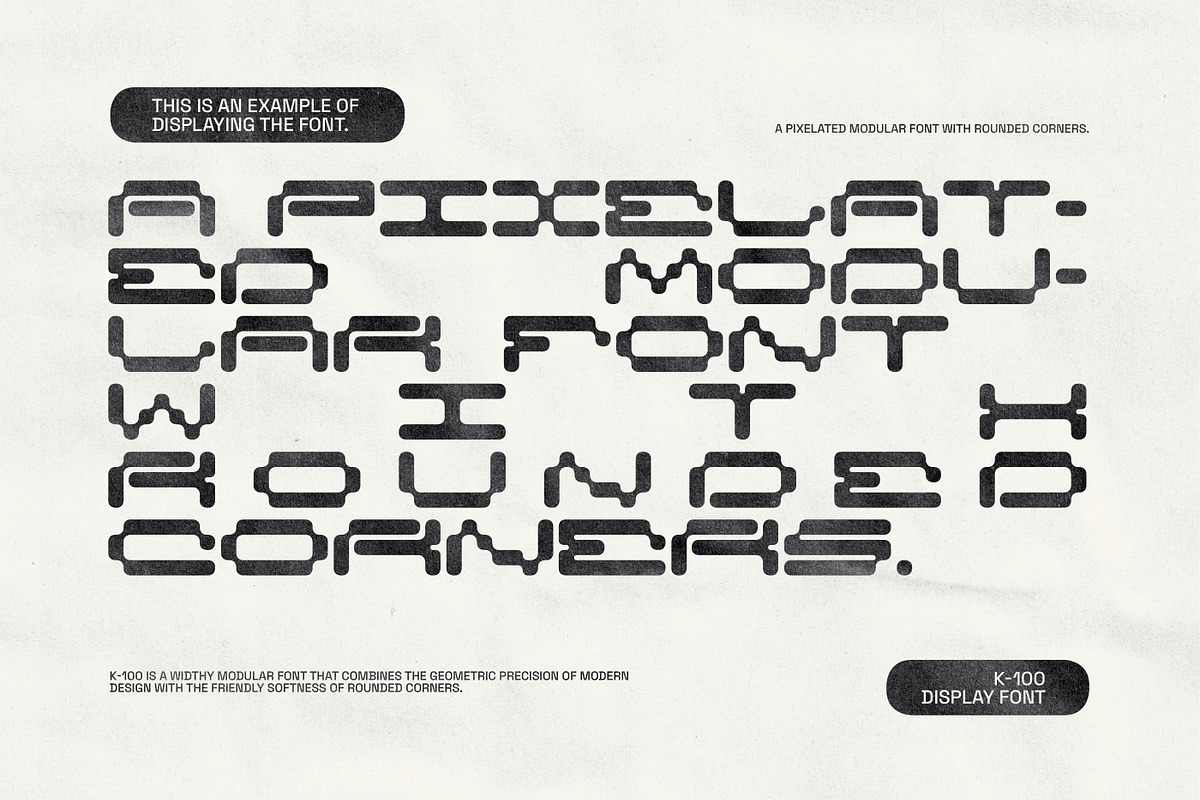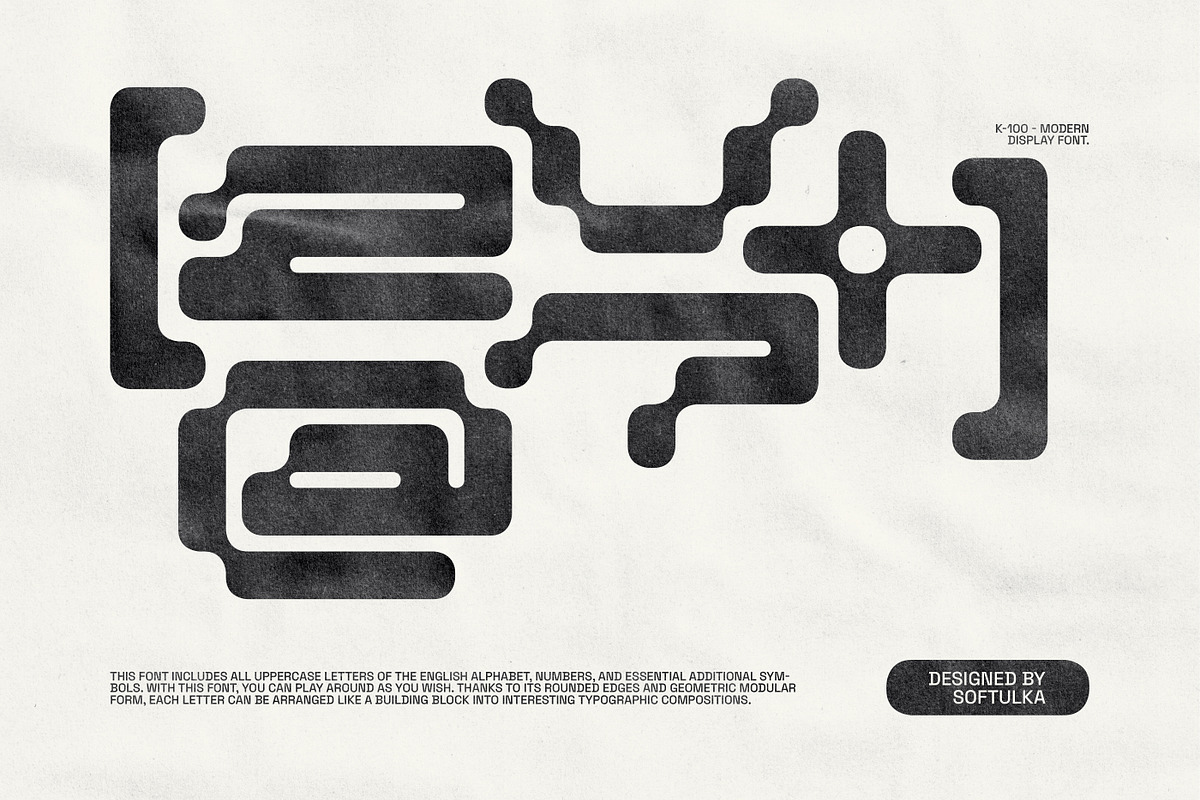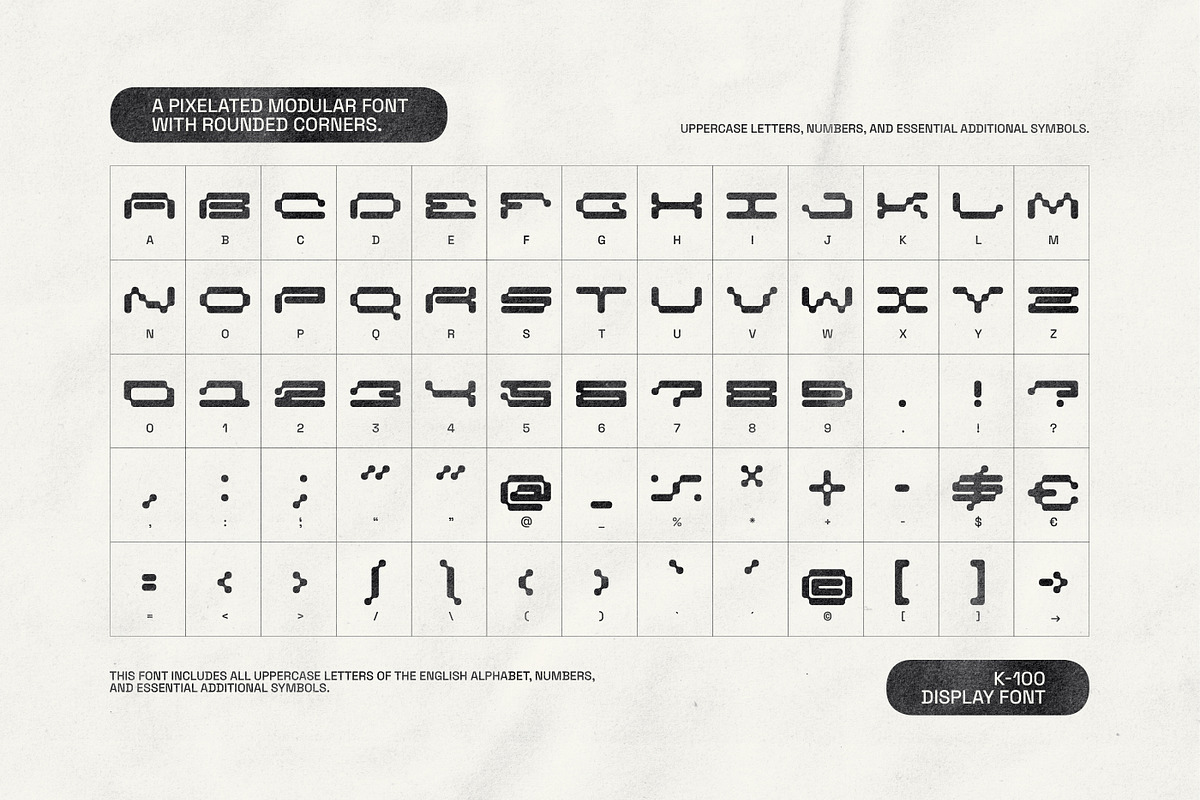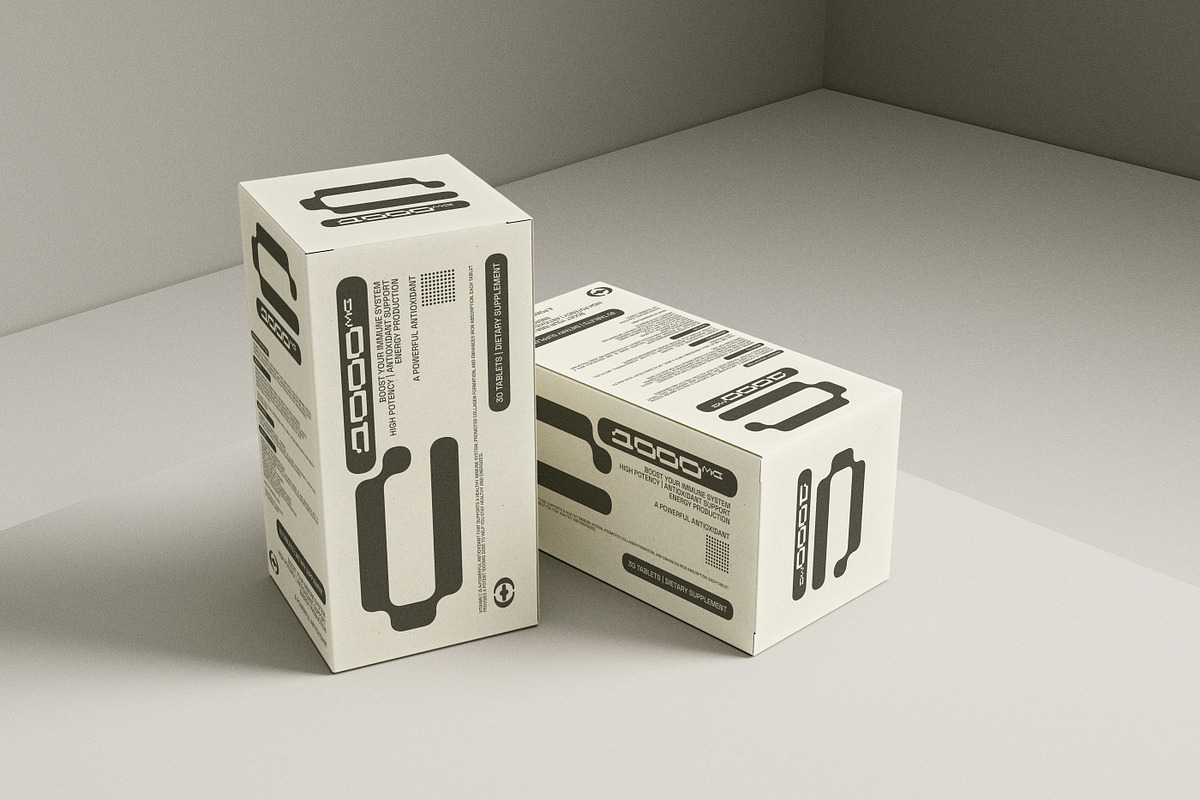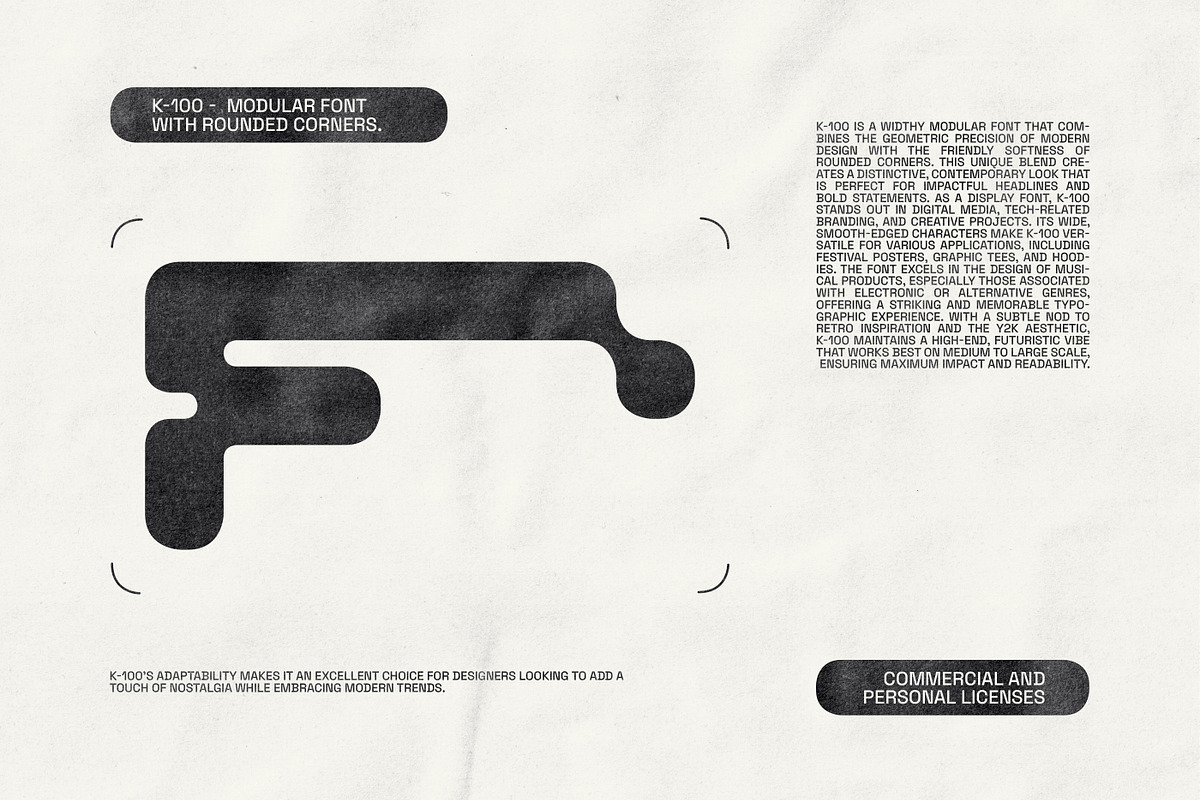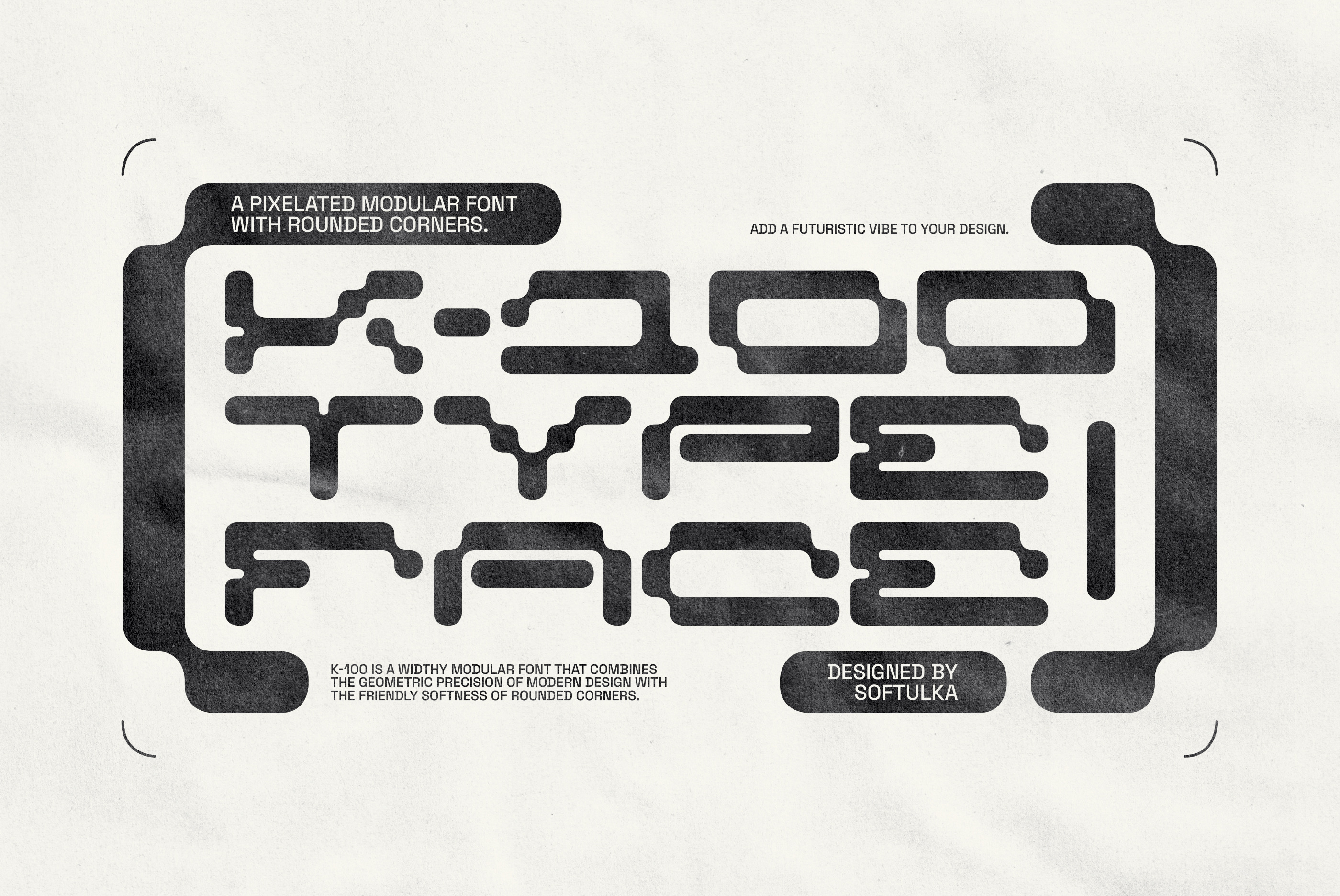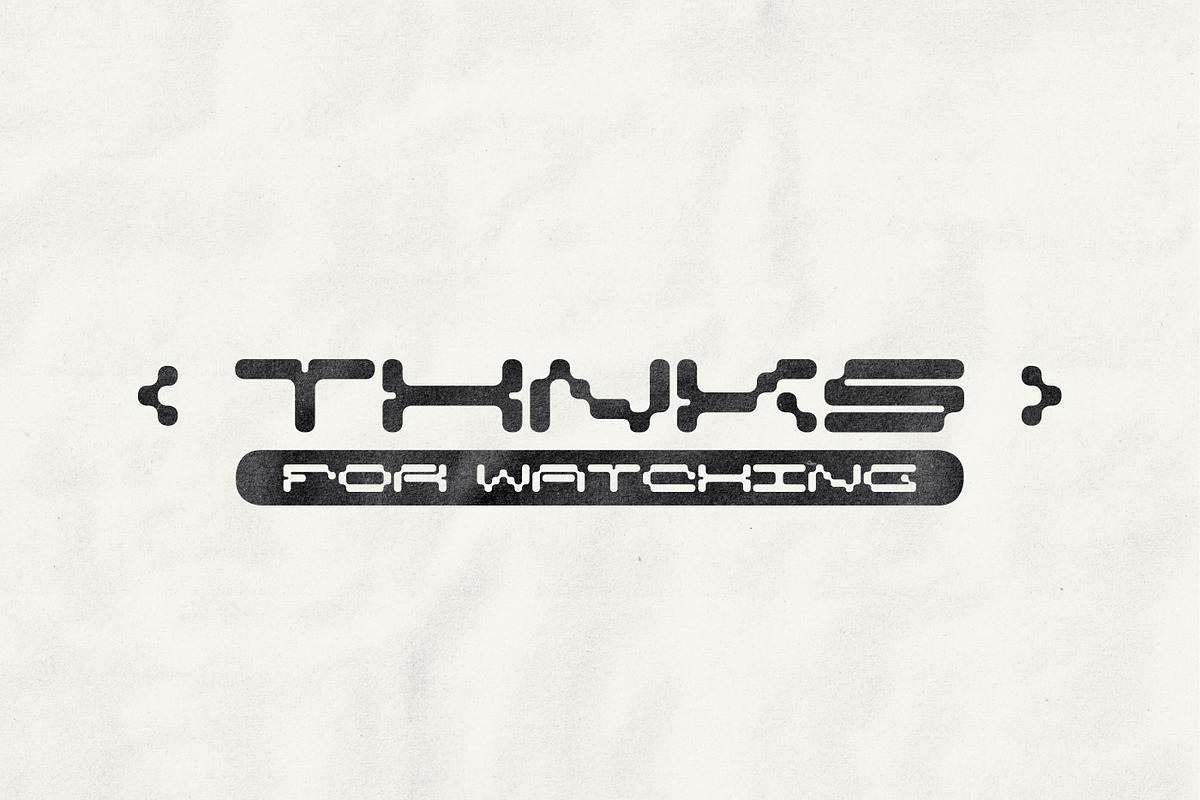
K-100 Font a Pixelated Modular Font
K-100 is a widthy modular font that combines the geometric precision of modern design with the friendly softness of rounded corners. As a display font, K-100 stands out in digital media, tech-related branding, and creative projects. Its wide, smooth-edged characters make K-100 versatile for various applications, including festival posters, graphic tees, and hoodies.
The font excels in the design of musical products, especially those associated with electronic or alternative genres, offering a striking and memorable typographic experience. With a subtle nod to retro inspiration and the Y2K aesthetic, K-100 maintains a high-end, futuristic vibe that works best on medium to large scale, ensuring maximum impact and readability.